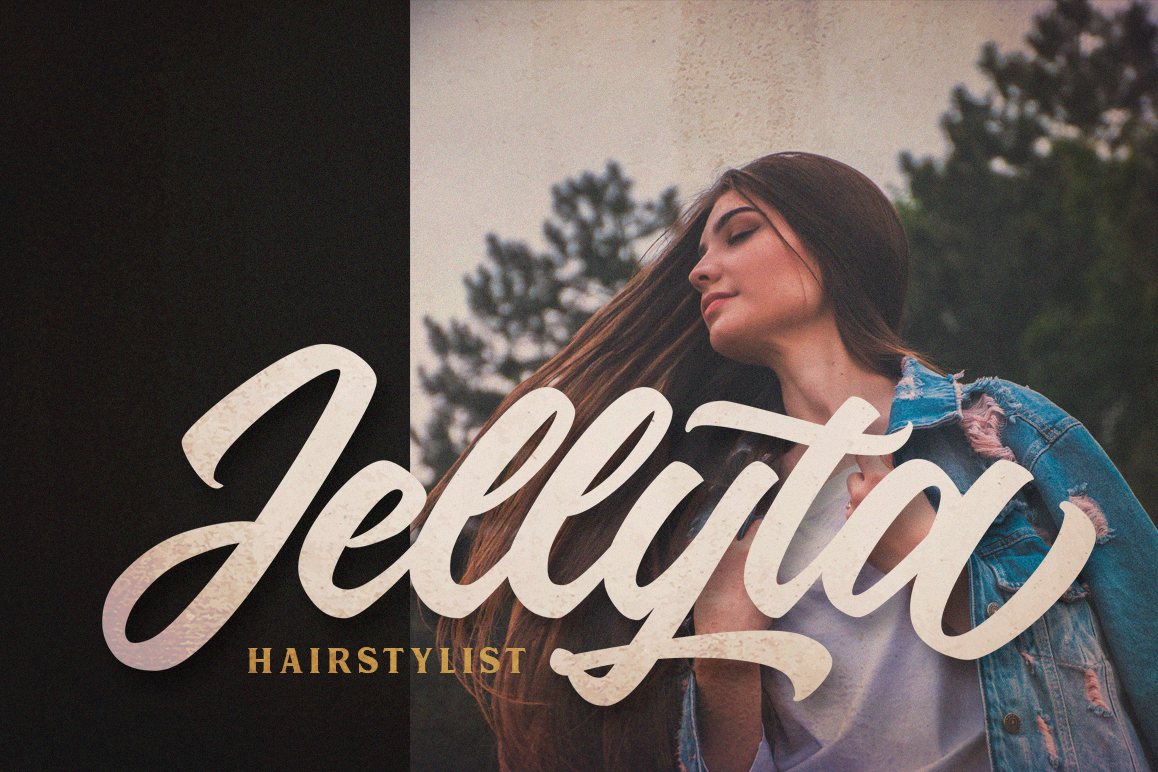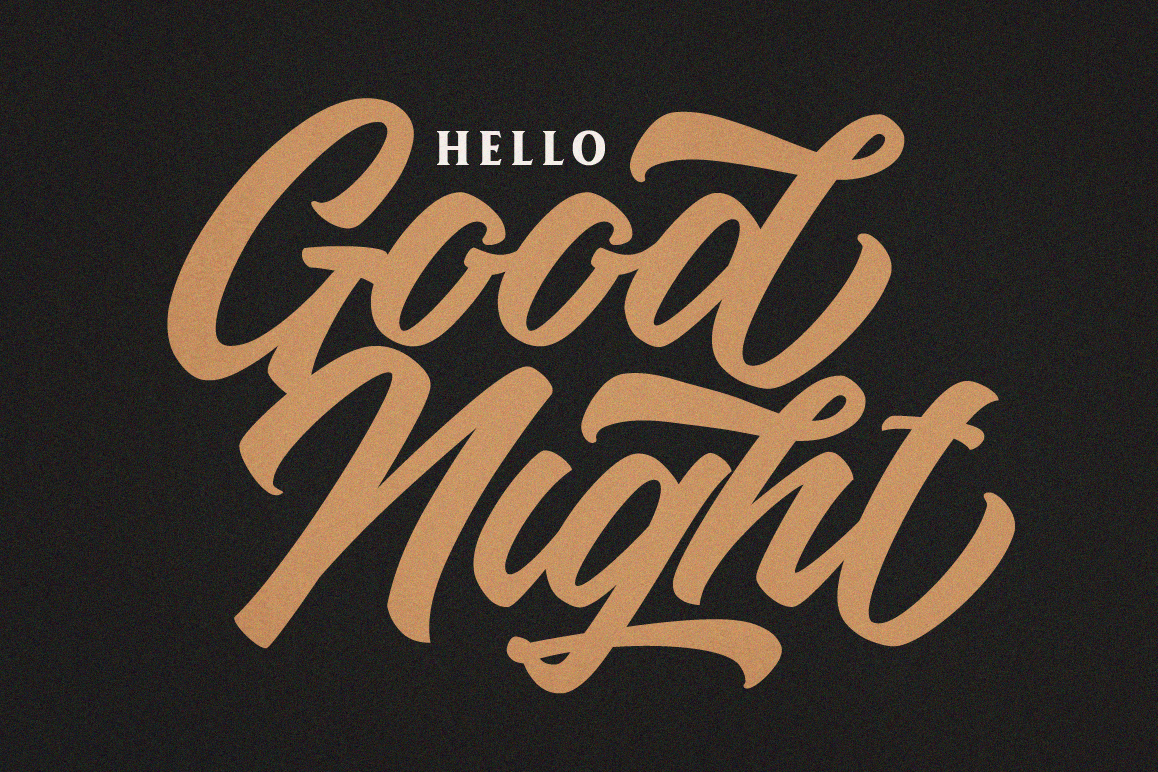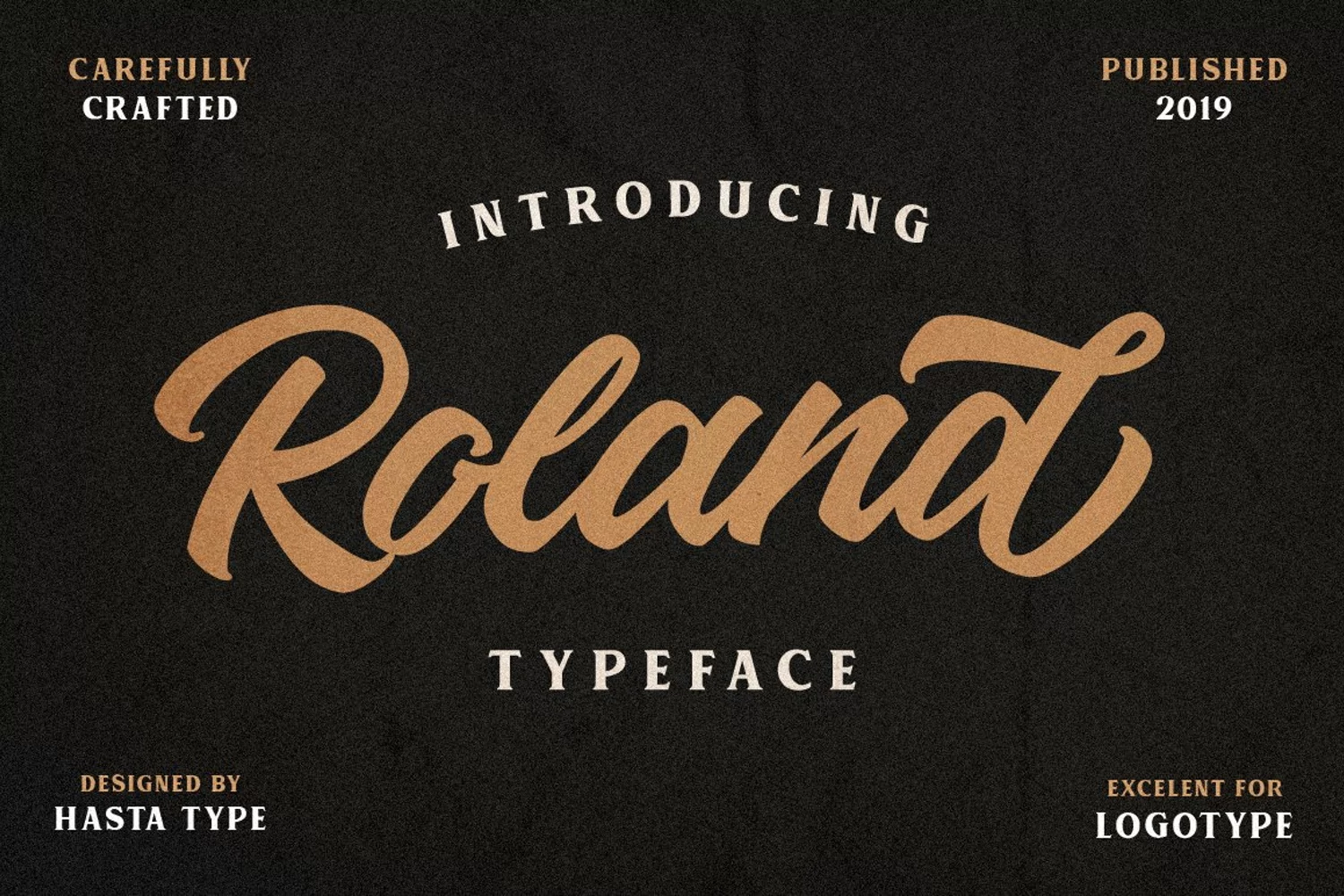
Roland Typeface is Script font developed based my hand lettering style with retro or vintage looks. This font is awesome for your creative project such as Logotype, Branding, Packaging, Poster, Merchandise, label, and much more.
Roland Typeface comes with standard character, numeral, punctuation and also, stylistic set, alternates, and ligatures which let you customize your designs.